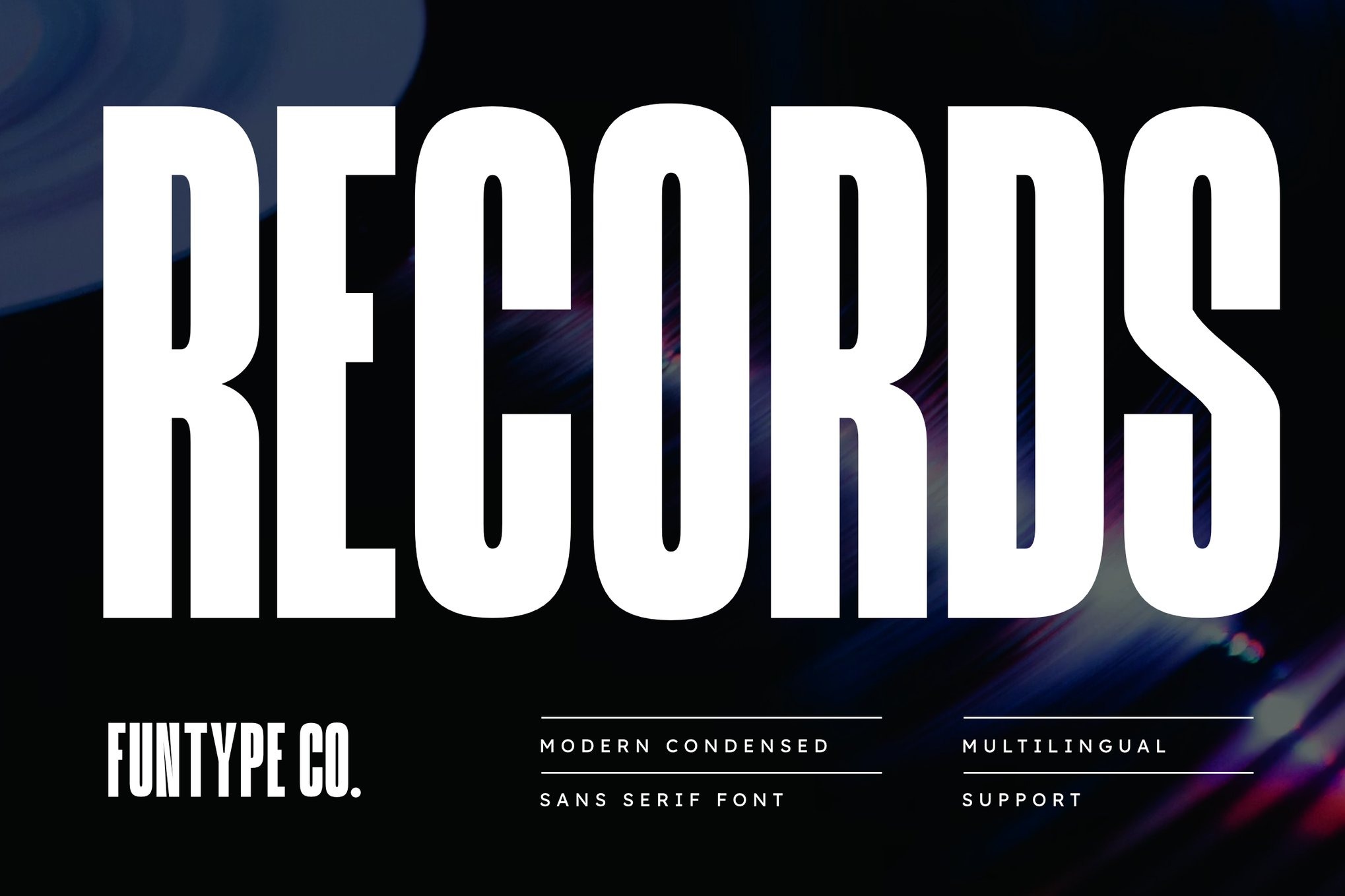
Records – Bold Condensed Font
Records – Bold Condensed Font is a premium-quality font developed to enhance your work with a polished, modern, and visually elevated look. Records is a bold, sleek, and modern condensed sans serif font, thoughtfully designed to capture the nostalgic essence of vintage vinyl culture blended with contemporary cinematic storytelling. With its remarkably tall structure, narrow horizontal footprint, and smooth geometric curves, Records offers a professional audio-visual lifestyle aesthetic that brings a touch of commanding presence and sophisticated drama to any editorial design.
This font is the ideal choice for designers looking to add a professional, sleek, and space-efficient touch to their portfolio. Whether you are crafting a retro music magazine header, a dramatic movie title card, automotive branding, or bold digital media graphics, Records provides a seamless blend of classic entertainment romance and heavy structural power.
Main Features:
Modern Condensed Sans Design: Optimized for an elongated, space-saving, and highly professional display look.
High-Impact Vertical Proportions: Meticulously crafted heights to secure maximum visibility and a distinct editorial feel.
Multilingual Support: Fully loaded and prepared for cross-platform international marketing campaigns.
Professional Entertainment Aesthetic: High-end finish tailored for music lookbooks, retro-modern packaging, and visual media production.